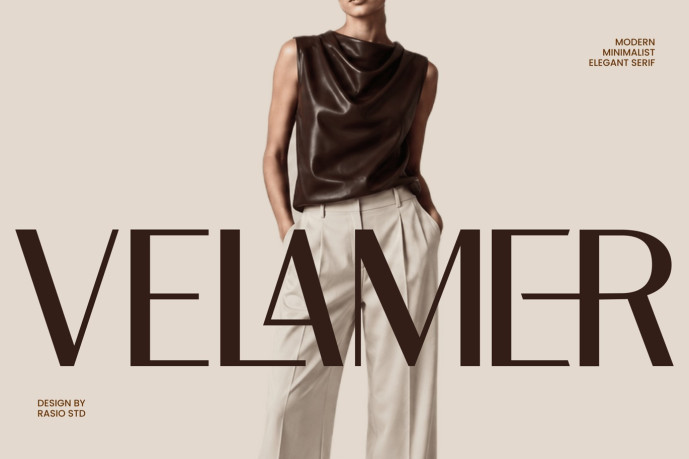
Velamer Modern Minimalist Serif Font
Velamer Modern Minimalist Serif Font is a contemporary serif typeface that embraces simplicity through refined proportions, clean construction, and understated elegance. Designed with a harmonious balance of sharp geometry and soft curves, the font presents a sophisticated silhouette that feels modern while maintaining the timeless appeal of classic serif typography. Its elongated letterforms, generous spacing, and carefully controlled stroke contrast create a calm visual rhythm, allowing every headline and logo to communicate confidence with effortless style. Minimal decorative elements keep the design clean and versatile, making the typeface suitable for premium branding without overwhelming the overall composition.
Created for designers seeking understated luxury, Velamer includes uppercase and lowercase characters, numerals, punctuation, that expand creative possibilities across a wide range of professional applications. The font performs beautifully in both large display settings and refined branding layouts, offering excellent legibility while preserving its elegant personality. Whether used for luxury fashion brands, beauty and skincare companies, boutique businesses, interior designers, architecture firms, hospitality brands, creative agencies, editorial publishers, lifestyle magazines, premium restaurants, jewelry brands, photographers, branding studios, cosmetic packaging, wedding professionals, and high-end digital marketing projects.